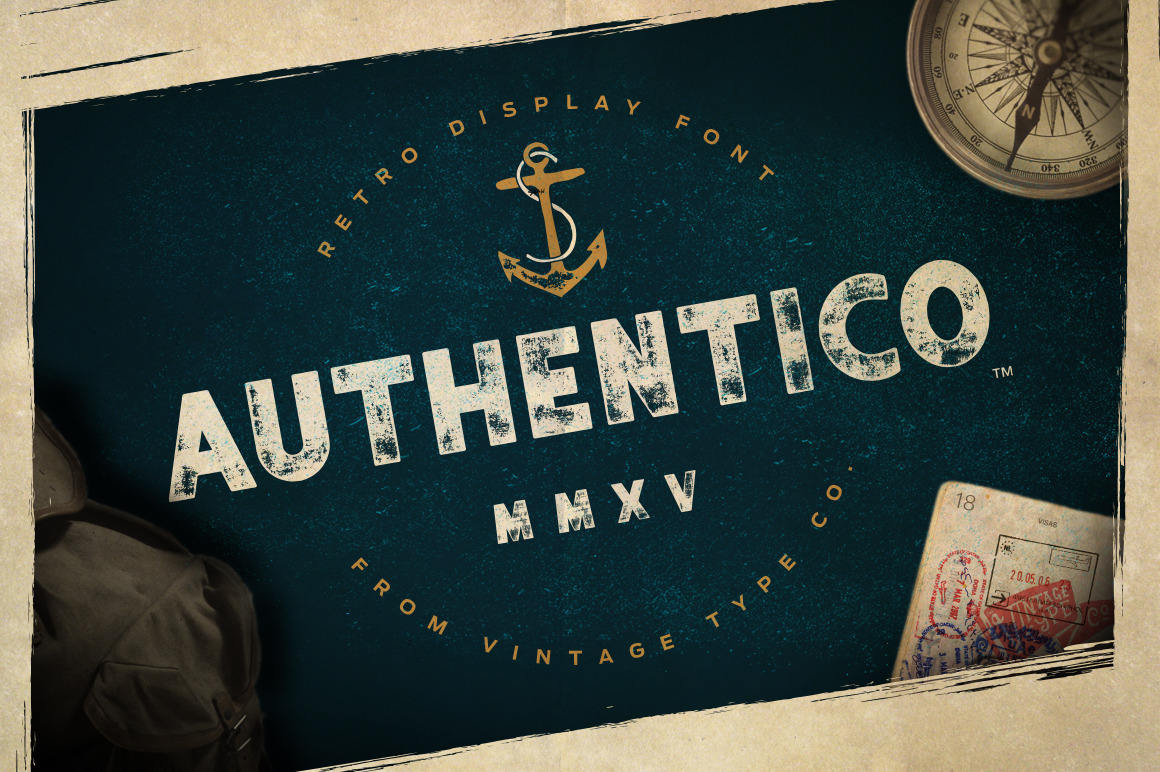
Authentico Display Font
Authentico Display Font was inspired by vintage poster typography. The letter forms have slight quirks to them, giving this bold sans-serif display font a perfect imperfection.
This font is perfect for logos, badges, clothing, signage, posters, and much more!
Included with this versatile display font are 8 different styles to choose from: